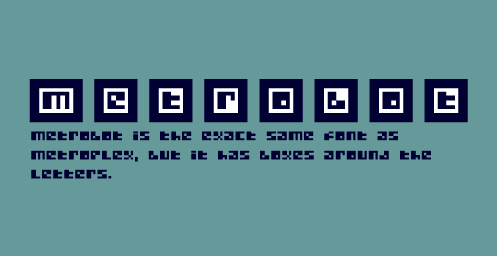
HomeFont BrosMetrobot Font Bros Metrobot FacebookXPinterestWhatsApp 1 of 1 About Metrobot Could this font get any more krazy? Totally! But I figured instead of going nuts, I would just make some squares around the letters and be done with it.  DOWNLOAD NOW People also explored Patty Font Angel Show Font Handylla Font The Wild Wild West Font Purissima Bold Eloquence Cayla Font Disco Inferno Deirma Font 408 0 TagsMetrobot Font Previous articleReload Alt StencilNext articleVelcro LEAVE A REPLY Cancel reply Comment: Please enter your comment! Name:* Please enter your name here Email:* You have entered an incorrect email address! Please enter your email address here Website: Save my name, email, and website in this browser for the next time I comment. Personal Use Free Hunting Font Personal Use Free Read more about this font Predators Personal Use Free Read more about this font Micahel Personal Use Free Read more about this font Happy Santa Personal Use Free Read more about this font BLOG Using Fonts in Digital Marketing: Tips to Strengthen Your Brand Identity In the realm of digital marketing, every visual element plays a crucial role in shaping a brand's identity, and fonts are no exception. The... Exploring Font Trends Free vs Paid Fonts: Why Investing in Premium Fonts Is Worth It How to Cut Any Font on Cricut: Convert a Font to SVG (Free)